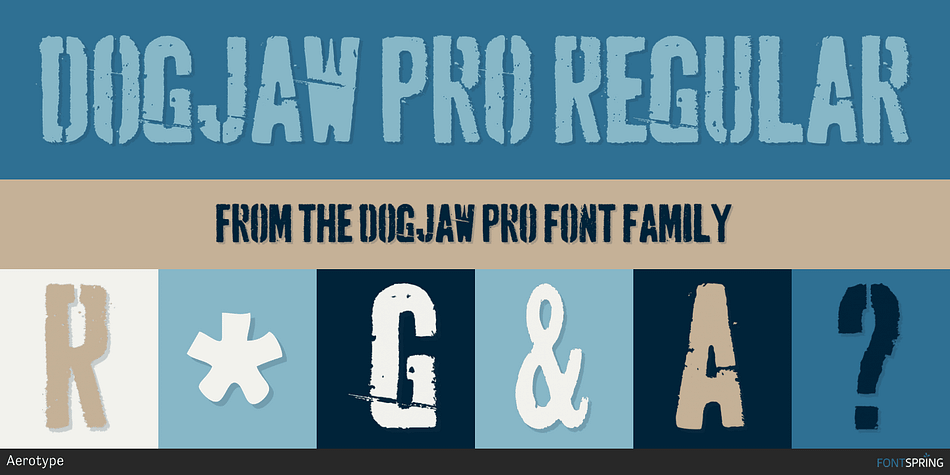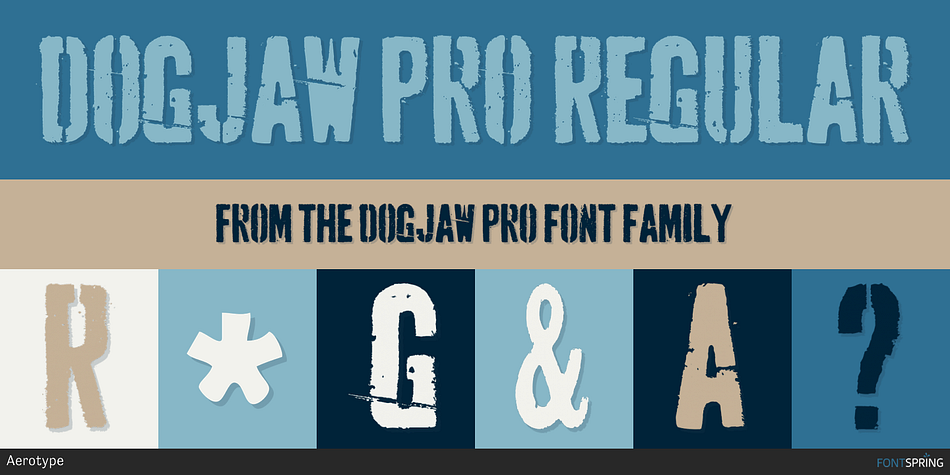
Dogjaw Pro is a grunge and stencil font published by Aerotype .
The OpenType version of Dogjaw Pro has 52 ligature features that automatically substitute a unique pair of distressed characters when any upper or lower case letter is keyed twice in a row, as well as support for Eastern European Latin, Baltic, Greek and Turkish.